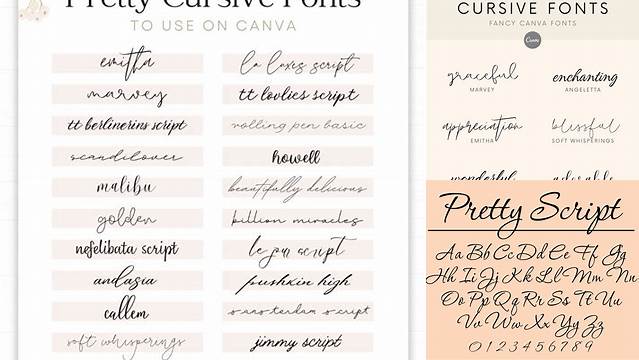
Pretty Cursive Fonts Generator: Your Ultimate Guide
Are you looking to add a touch of elegance and personality to your text? Well, look no further! Our pretty cursive fonts generator is here to transform your ordinary words into stunning visual art. Whether you're crafting a heartfelt letter, designing a captivating logo, or spicing up your social media posts, this tool is your secret weapon. Let's dive into the wonderful world of cursive fonts and explore how this generator can help you unlock your creative potential.
What is a Pretty Cursive Fonts Generator?
In the digital age, where communication often leans towards the straightforward and functional, the pretty cursive fonts generator offers a refreshing alternative. It's a user-friendly online tool designed to convert your standard text into beautifully rendered cursive fonts. Think of it as your personal font stylist, ready to add flair and sophistication to any text you desire. This generator provides a wide array of cursive font styles, ranging from classic and elegant to modern and whimsical. You can experiment with different options to find the perfect match for your project's needs. The beauty of this tool lies in its simplicity and accessibility. You don't need to be a design expert or a typography guru to create stunning text. With a few clicks, you can transform plain text into something truly special. Whether you're a seasoned graphic designer, a social media enthusiast, or just someone who loves to express themselves creatively, the pretty cursive fonts generator is a valuable asset. It's a gateway to a world of visual possibilities, allowing you to add a touch of personality and uniqueness to your digital creations. The generator is all about making creativity accessible. It allows you to experiment with different styles, sizes, and effects, giving you complete control over the final look of your text. The possibilities are endless, from creating eye-catching headlines to crafting elegant invitations and personalized messages. With the power of a pretty cursive fonts generator, you can elevate your content and make it stand out from the crowd.
How Does a Cursive Font Generator Work?
The magic behind our cursive font generator is surprisingly simple. It's built upon a foundation of advanced algorithms and meticulously designed font libraries. When you enter your text into the generator, the system analyzes it and then applies the selected cursive font style. This process involves replacing each letter with its corresponding cursive counterpart, ensuring that the final output maintains readability while exhibiting the chosen aesthetic. The generator offers a range of customization options that allow you to fine-tune the appearance of your text. You can adjust the font size, choose from various color schemes, and add special effects such as shadows, outlines, and gradients. Some generators even provide the option to preview your text in real-time, enabling you to see the changes instantly and make adjustments as needed. The core of the generator's functionality is its extensive font library. This library houses a wide selection of cursive fonts, each with its unique style and characteristics. These fonts are created by skilled typographers and designers, ensuring that they are both visually appealing and technically sound. The generator ensures that your text is not only beautiful but also easy to read, maintaining legibility even at smaller sizes. This means that your message is conveyed clearly and effectively, while also adding an element of style and sophistication.
Benefits of Using a Pretty Cursive Fonts Generator
Using a pretty cursive fonts generator comes with a ton of benefits, that go beyond just the cool look of the fonts. First and foremost, it's a fantastic way to express your creativity. You can use cursive fonts to add a unique and personalized touch to your projects. Whether you're creating invitations, designing social media graphics, or crafting personalized messages, the generator allows you to inject your personality into your work. It's like giving your text a voice, and letting it speak in a style that's uniquely you. Another significant advantage is the time and effort saved. Manually creating cursive text can be time-consuming and require specialized skills. With a generator, you can achieve professional-looking results in a matter of seconds. No more endless hours spent trying to perfect your handwriting or struggling with complex design software. It's all about efficiency. Plus, a pretty cursive fonts generator makes your content more engaging. Cursive fonts are visually appealing and can grab the attention of your audience. They add a touch of elegance and sophistication that can elevate your content and make it stand out from the crowd. In a world saturated with digital content, it's crucial to find ways to make your work memorable. The generator allows you to do just that. The versatility of cursive fonts means they're suitable for a wide range of applications. From formal invitations and elegant wedding announcements to fun social media posts and eye-catching logos, the possibilities are endless. The generator gives you the tools to adapt your text to different contexts, ensuring that it looks perfect in any situation. Finally, the generator is accessible and user-friendly. You don't need to be a design expert or a typography guru to use it. The interface is typically intuitive and easy to navigate, even for beginners. This means that anyone can use the generator to create beautiful cursive text, regardless of their skill level or experience.
How to Choose the Right Cursive Font
Choosing the right cursive font is essential for achieving the desired visual effect and ensuring that your message is conveyed effectively. With a plethora of options available, it might seem a bit daunting at first, but here’s a simple guide to help you choose the perfect font. Start by considering the overall tone and style of your project. Is it formal or informal? Elegant or playful? The font you choose should complement this tone. For example, a classic, elegant font would be ideal for a wedding invitation, while a more whimsical font would be perfect for a children's birthday party. Next, think about readability. While cursive fonts are known for their decorative appeal, it's crucial to choose one that remains legible, especially at smaller sizes. Look for fonts with clear letterforms and consistent spacing. Avoid fonts that are overly stylized or have intricate flourishes that might make the text difficult to read. Consider the context in which the text will be used. Will it be used for a headline, a paragraph of text, or a logo? Different fonts are better suited for different applications. For headlines, you might choose a bold, attention-grabbing font. For paragraphs of text, a more understated font that is easy to read at a glance is best. Experiment with different fonts to see how they look in the context of your project. Most generators allow you to preview your text in various fonts, making it easy to compare options. Pay attention to the overall design of the font. Consider the weight, slant, and flourishes of the letters. Some fonts have a more upright stance, while others have a more pronounced slant. Some fonts also have ornate flourishes that can add a touch of elegance, while others are more streamlined and modern. Think about the target audience of your project. Different fonts may appeal to different demographics. For example, a script font might resonate with a younger audience, while a more classic font might be preferred by an older audience. Don't be afraid to experiment and play around with different fonts until you find the perfect match for your project.
Creative Applications of Cursive Fonts
Cursive fonts are incredibly versatile and can be used in various creative applications. Let's dive into some of the most popular and exciting ways to use them. First off, social media is a goldmine. Cursive fonts can transform your posts and profiles. Use them for eye-catching captions, stylish bios, or unique graphics. Imagine your Instagram feed, with elegant cursive fonts creating a cohesive and visually appealing brand. You can create quote graphics, add stylized text overlays to your photos, or design custom social media banners that grab attention. Secondly, invitations and announcements. Nothing says elegance like a beautifully designed invitation in cursive. Use cursive fonts for wedding invitations, birthday announcements, baby shower invites, and more. The sophisticated touch of cursive elevates these special announcements. Whether you're planning a formal wedding or a casual get-together, cursive fonts add a sense of sophistication and personalization. Thirdly, logo design. Cursive fonts are perfect for creating logos that convey a sense of elegance, sophistication, and personal touch. Many businesses use cursive fonts to establish a brand identity that is both memorable and visually appealing. Cursive fonts can also be used for other branding materials, such as business cards, letterheads, and website headers. Next, there's personalized gifts. Add a special touch to gifts with custom cursive text. Engrave a name, a message, or a quote on jewelry, mugs, or other items. This personal touch makes the gift even more meaningful. Whether you're gifting to a loved one or a friend, personalized gifts show that you care. Finally, you can create wall art and home décor. Use cursive fonts to create wall art, custom quotes, or inspirational messages. Print them out and frame them to decorate your home or office. This is a fantastic way to add a personal touch to your space. Cursive fonts can transform any room into a stylish, inspiring environment. In short, the creative possibilities are endless when you have a cursive fonts generator at your fingertips.
Tips for Using a Cursive Fonts Generator Effectively
To get the most out of your cursive fonts generator, here are some tips and tricks. First of all, make sure you choose the right font. Consider the tone and style of your project and select a font that matches it. Experiment with different fonts until you find the perfect one. It's like picking the right outfit; the right font will make your text shine. Next, pay attention to readability. While cursive fonts are beautiful, ensure they are easy to read, especially at smaller sizes. Avoid fonts with overly intricate flourishes that might make the text difficult to decipher. Make sure your audience can easily understand your message. Use the right font size and spacing. Experiment with different font sizes and spacing to ensure your text is both readable and visually appealing. The right size can make your text pop, while proper spacing prevents it from appearing cramped. Don't be afraid to experiment with colors and effects. Most generators allow you to customize your text with various colors, shadows, outlines, and gradients. Play around with these effects to add depth and visual interest to your text. It's a great way to make your text stand out. Combine cursive fonts with other font styles. Mix and match cursive fonts with other fonts, such as sans-serif or serif fonts, to create a balanced and visually appealing design. Mixing fonts can add contrast and visual interest, making your content more engaging. Make sure you save and export your work in the right format. Different projects may require different file formats, such as PNG, JPG, or SVG. Ensure you save your work in a format that's compatible with your intended use. It's also important to proofread your work. Double-check your text for any spelling or grammatical errors before finalizing your design. Proofreading ensures that your text is polished and professional-looking. Take the time to look over your work, just like you would before sending a letter or publishing a blog post.
Conclusion: Unleash Your Creativity with Cursive Fonts
So, there you have it! The world of the pretty cursive fonts generator, a tool that empowers you to transform plain text into art. With its ease of use, vast selection of fonts, and endless creative possibilities, it's a must-have for anyone looking to add a touch of elegance and personality to their digital creations. Whether you're a seasoned designer or just starting out, the generator is your gateway to stunning typography. So, go ahead, unleash your inner artist, experiment with different styles, and watch your words come to life in the most beautiful way imaginable. Embrace the power of cursive fonts and let your creativity soar. Happy creating!